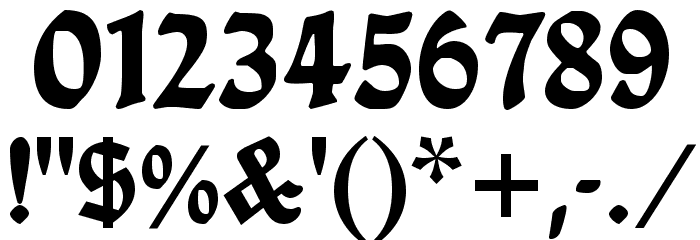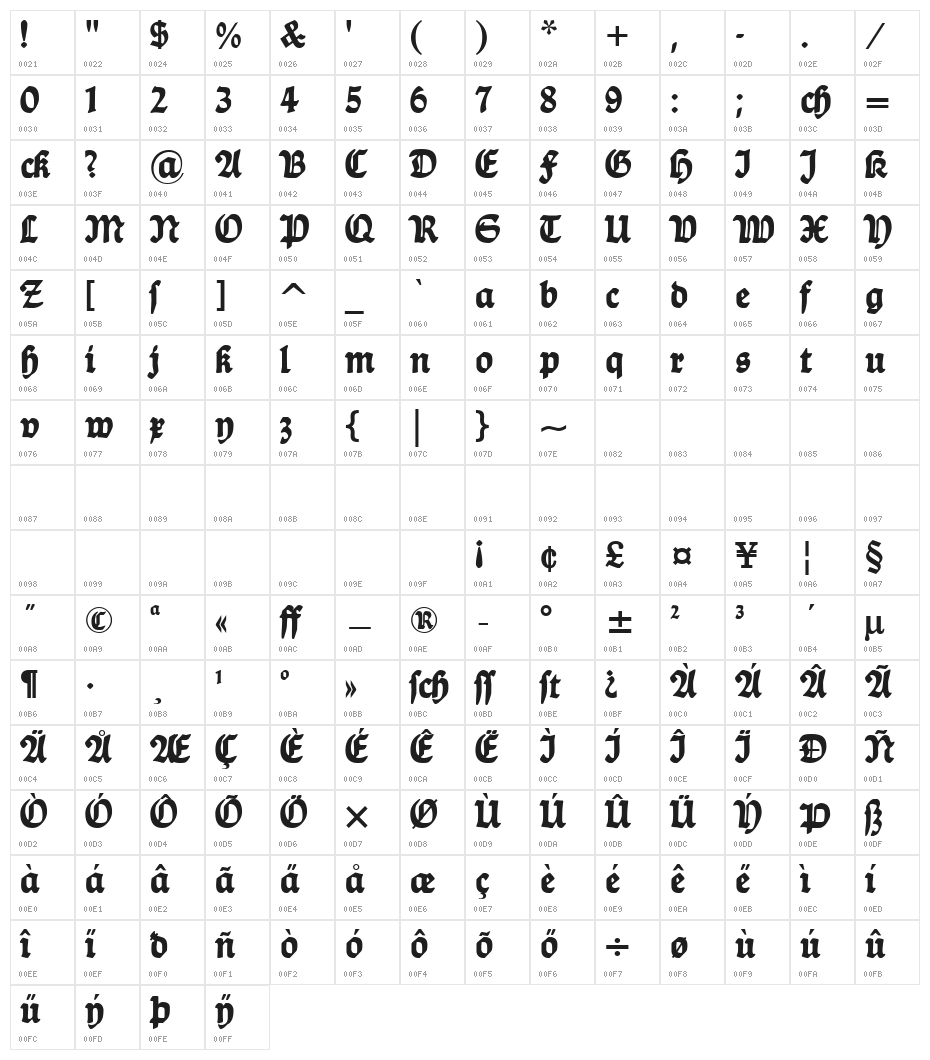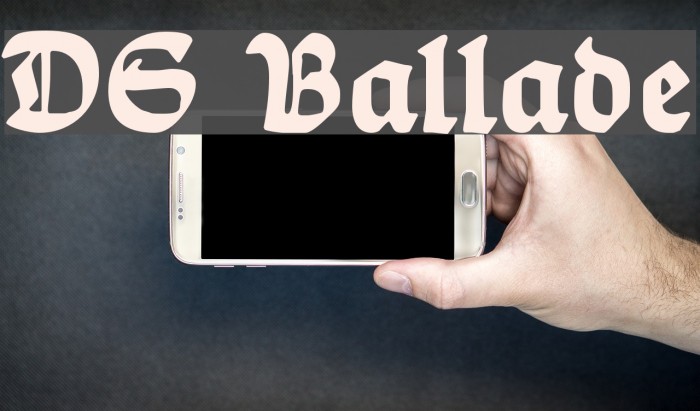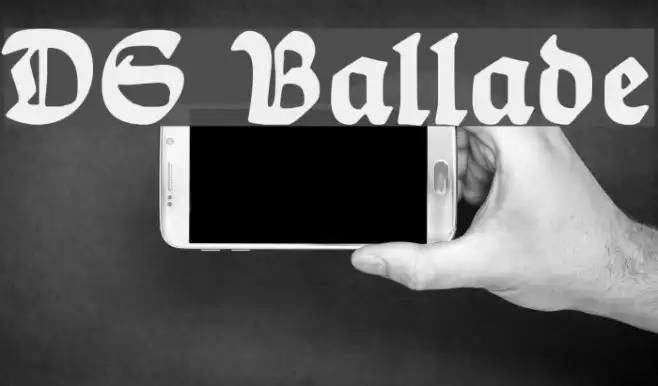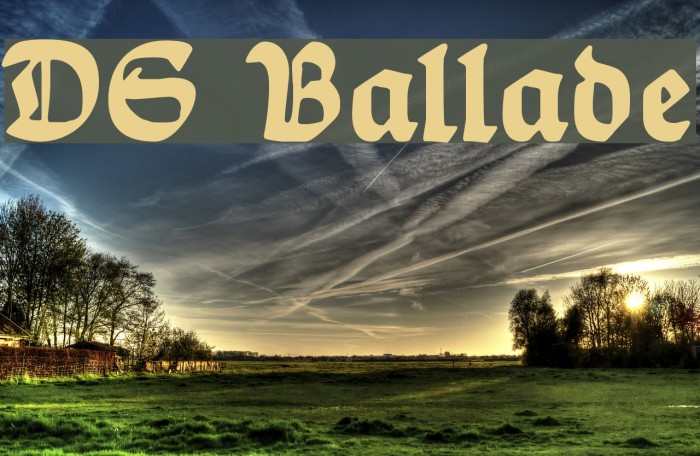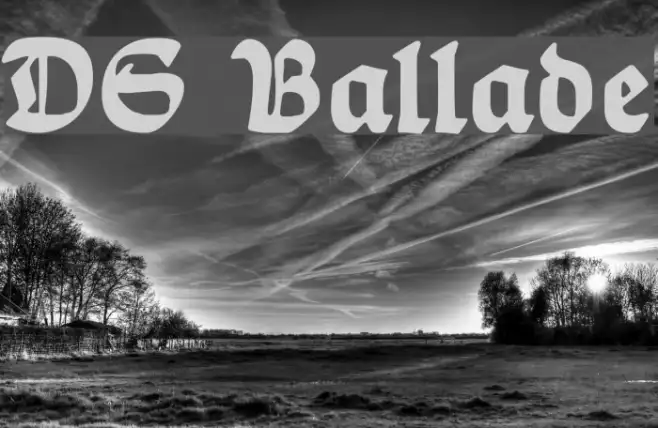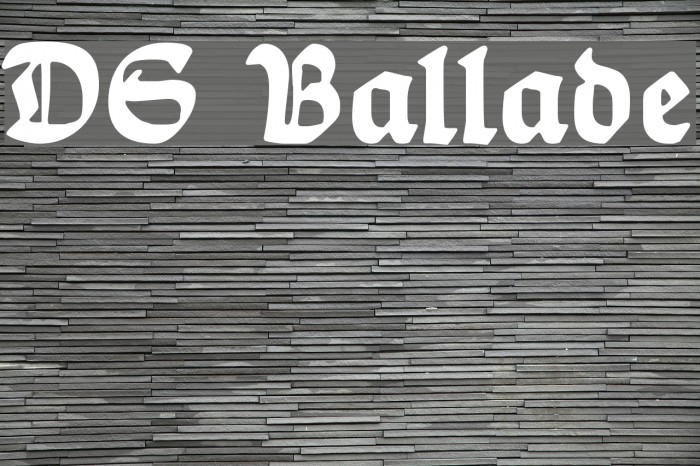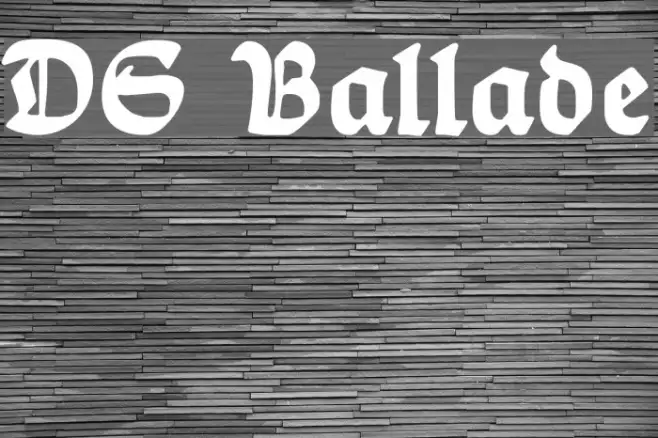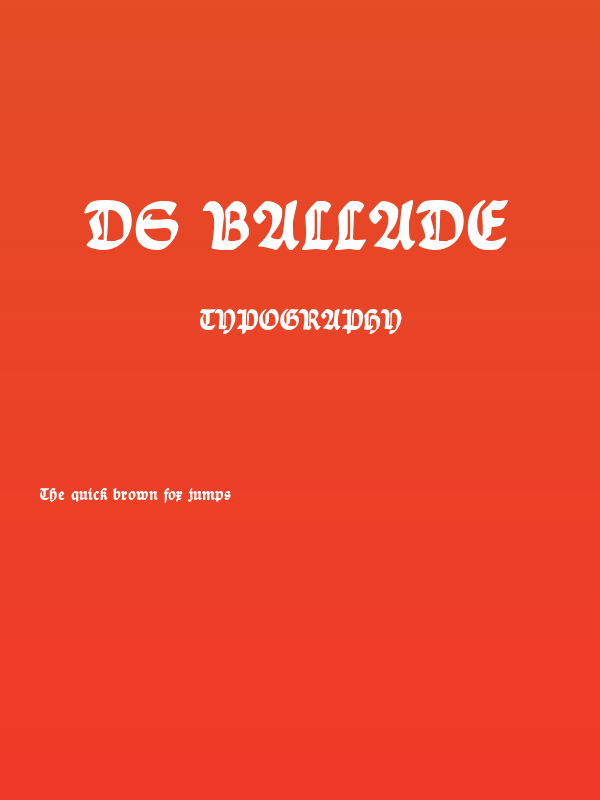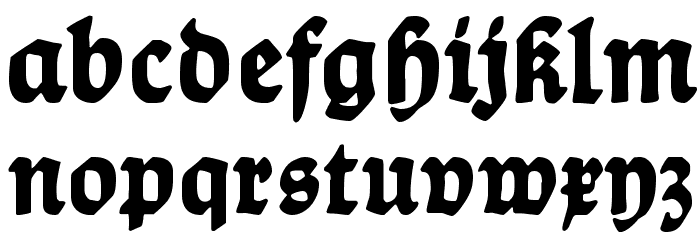
DS Ballade Font
DS Ballade Description
This font exhibits a classic blackletter style, characterized by its intricate and ornate design. The letters are bold and angular, with sharp edges and dramatic flourishes that evoke a sense of historical elegance. The uppercase letters are particularly striking, with their elaborate serifs and decorative elements. The lowercase letters maintain the same level of detail, ensuring consistency throughout the typeface. Numbers and special characters are designed to match the overall aesthetic, making this font suitable for projects that require a touch of medieval or gothic flair. The font's strong presence and unique style make it ideal for creating impactful headlines or logos.
Overall StyleVintage
Proposed ProjectsIdeal for vintage-themed designs, book covers, posters, and branding that requires a gothic or medieval touch.